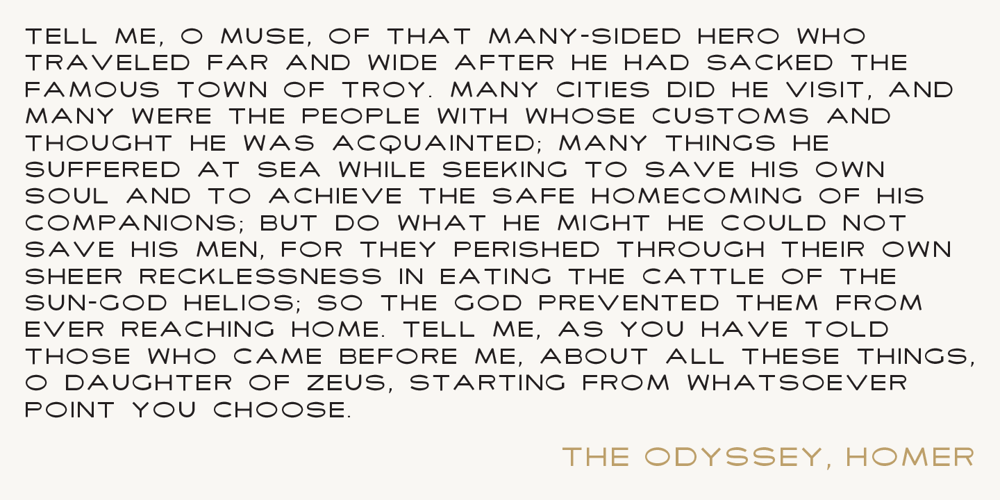
Quantour Font Family was designed by Thoma Kikis and published by TEKNIKE. Quantour contains 18 styles and family package options. Quantour is a geometric monospaced display sans typeface which has a distinct style and is inspired by the Mid-Century Modern era. The Quantour name is a combination of the Latin ‘quantum’ meaning “unit of something” and the French ‘tour’ which means “to turn”. Quantour is recommended for luxury brands, logos, fashion, cinema, architecture, invitations, display work, posters and headings.